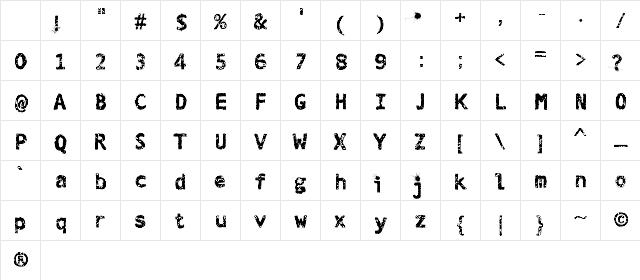
Tracing Blood carries an unsettling edge - its distorted letterforms are built to unsettle, perfectly suited to horror, Halloween, and dark creative work.
Font Pairing: Pair with a clean neutral sans-serif for body copy to let Tracing Blood's character lead without overwhelming the composition.
Pro Tip: Use Tracing Blood at larger display sizes for maximum impact. Consider generous tracking to let the disturbing character of each letterform breathe.